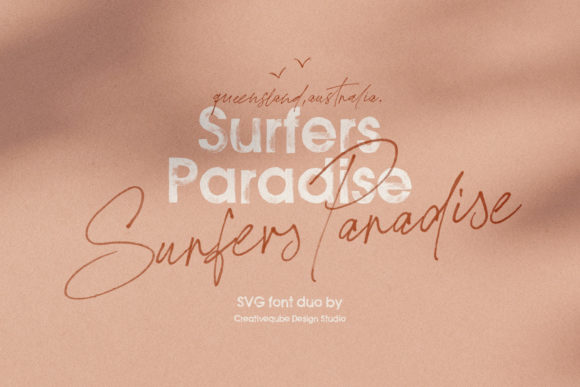
Journey through the waves of creativity with Surfers Paradise, the enchanting script font that ignites the spirit of the sea. This captivating font, crafted by the ingenious minds at Creativeqube Design, is an ode to the beauty of the ocean, capturing the fluidity of crashing waves and the allure of sandy beaches. Surfers Paradise is the ultimate choice for those seeking a touch of coastal charm and sophistication in their designs.
Unleash your imagination and let the allure of Surfers Paradise dance across your wedding invitations, bestowing an air of timeless elegance upon your special day. Each letter, meticulously crafted with passion and precision, intertwines seamlessly to form words that exude romance and allure. The font's graceful strokes evoke the artistry of calligraphy, adding a touch of personal charm to your vows and invitations.
Embark on a creative voyage with Surfers Paradise and transform your social media posts into captivating works of art. Let your words ride the waves of this beautiful font, capturing the attention of your audience and leaving them spellbound. Whether you're crafting heartfelt messages, promoting your business, or sharing your passions with the world, Surfers Paradise will elevate your content to new heights.
With Surfers Paradise, the possibilities are as boundless as the vast ocean. Create eye-catching logos that evoke the spirit of adventure, design stunning posters that transport your audience to exotic shores, or craft enchanting branding materials that leave a lasting impression. Let your creativity flow freely as you explore the endless applications of this versatile font, leaving a trail of beauty and inspiration in your wake.
Take the plunge with Surfers Paradise and immerse yourself in a sea of creativity. This remarkable font is your passport to a world of design excellence, where your ideas will flourish and your projects will shine. Its PUA encoding ensures effortless access to a treasure trove of glyphs and swashes, empowering you to unleash your artistic vision without limits.